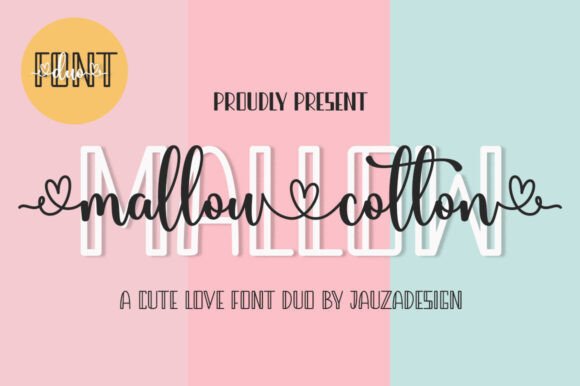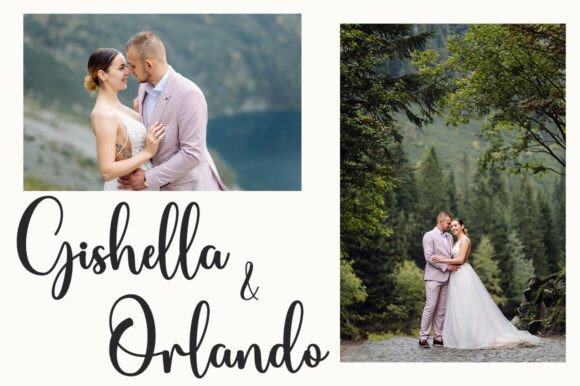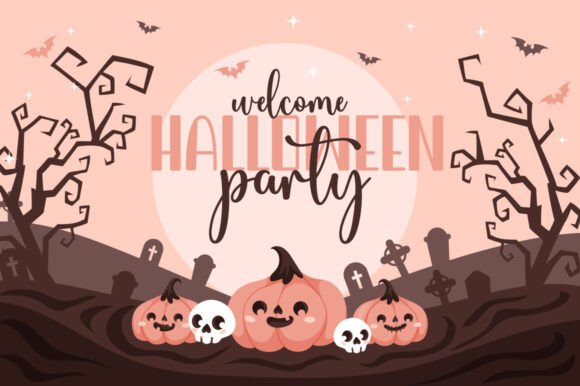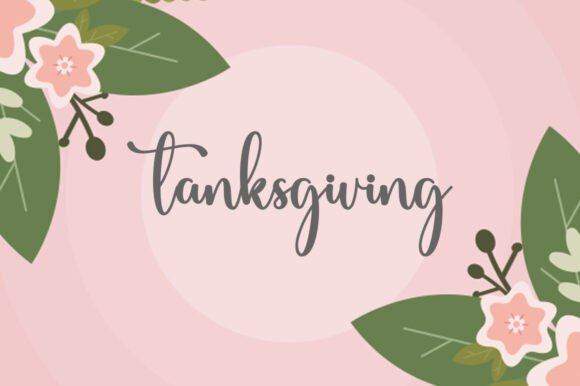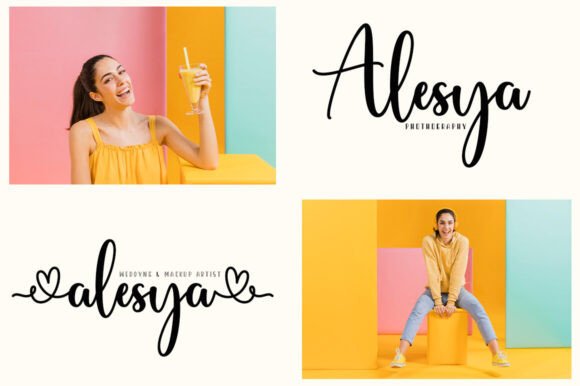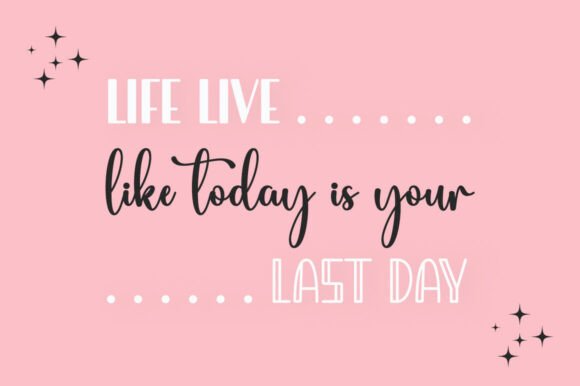
A Delightful Discovery in Typography
As a designer, you know the thrill of stumbling upon the perfect font for your next project. It’s like finding that hidden gem in a treasure trove of possibilities. And today, I’m excited to share with you a font that’s sure to become a staple in your design arsenal: the Cotton Mallow Font.
This lovely duo font, comprising both sans serif and script characters, adds a touch of elegance and sophistication to any design project. The Cotton Mallow Font is more than just a pretty face – its PUA encoding allows for easy access to all the glyphs and swashes, making it a valuable tool for designers looking to elevate their work.
Whether you’re working on a luxury brand or a high-end publication, the Cotton Mallow Font is sure to bring a level of refinement and sophistication to your designs. So why not give it a try and see the magic it can bring to your next project?
Cotton Mallow Font Key Features
- Unique Characteristics: The Cotton Mallow Font features a unique, hand-drawn design with soft, organic shapes and subtle texture, giving it a distinctive and charming aesthetic.
Cotton Mallow Font Review
Overall, I’m really impressed with the Cotton Mallow Font. It’s a beautiful, high-quality font that’s perfect for any project that needs a touch of elegance.
- ✨ Unique and Distinctive Style: The Cotton Mallow Font has a one-of-a-kind look that’s sure to stand out in any design.
- ✨ Excellent Legibility: The font is extremely easy to read, making it perfect for body text or headings.
- ✨ Great for Branding: The font’s unique style makes it ideal for creating memorable brand identities.
- ⚠️ Limited Character Set: The font only includes uppercase and lowercase letters, as well as a few punctuation marks. This might make it difficult to use for complex designs or projects that require a wide range of characters.
- ⚠️ Not Ideal for Small Text: Due to its unique style, the font can become difficult to read when used in small sizes. This might limit its use in certain design applications.
Overall, I’d highly recommend the Cotton Mallow Font for any project that needs a touch of elegance and sophistication. While it has some limitations, its unique style and excellent legibility make it a great choice for designers looking to add some personality to their designs.
Cotton Mallow is a versatile font suitable for various designs, including:
- Branding and logo design
- Printed materials such as business cards and brochures